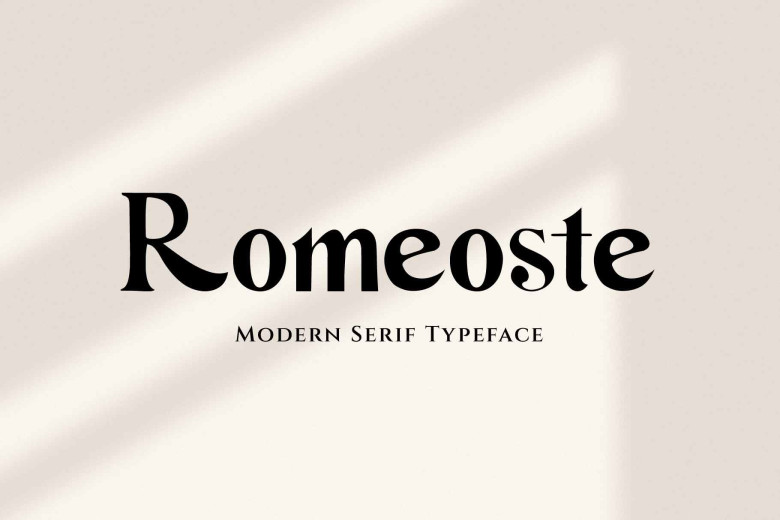
Romeoste Font
Introducing Romeoste, an elegant, trendy and versatile serif font. Easy to add to a variety of design ideas, both formal and informal. In short, this font was particularly crafted for those in need of a quick and stunning style. With Romeoste, you can easily follow every current trend.
Romeoste Serif Font